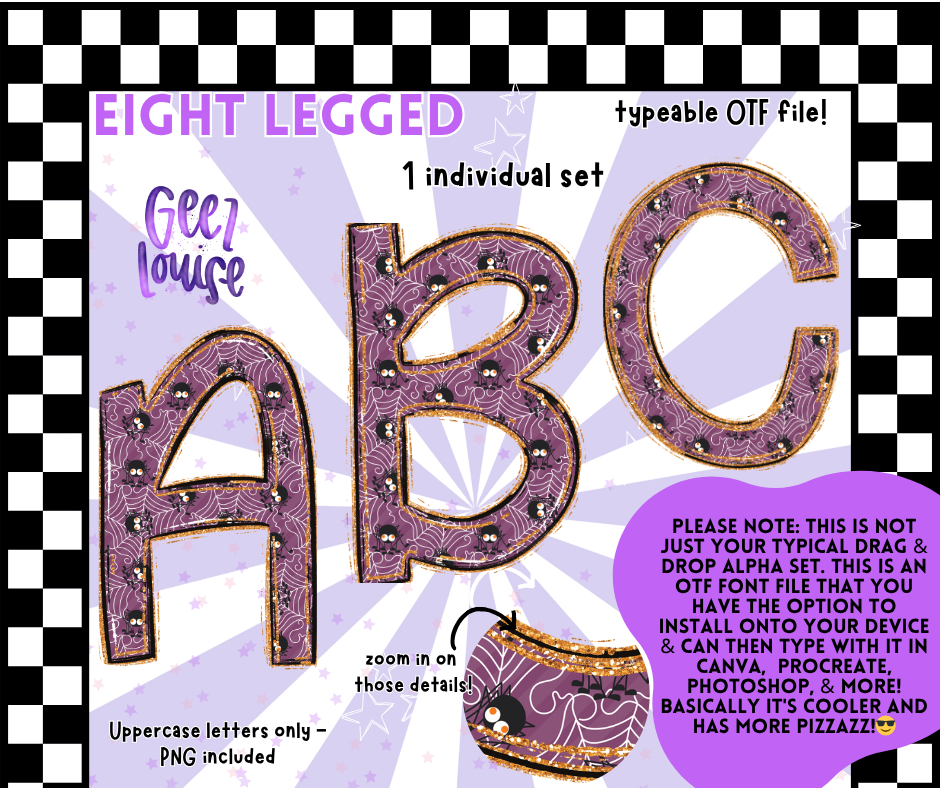
Eight Legged – Spider Web OTF Font + PNG Alpha Set (Uppercase Only)
Creepin’ it real with this Eight Legged Alpha Font, perfect for Halloween, spooky season projects, or just your everyday spider-loving chaos. This quirky purple font is packed with playful spiderweb textures, glittery edges, and those adorable little eight-legged critters!
🕸️ Spiderweb and glitter accents